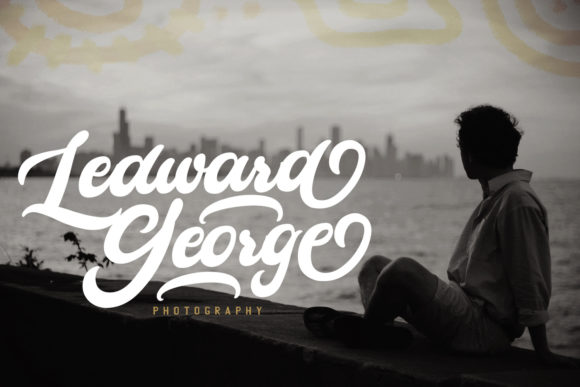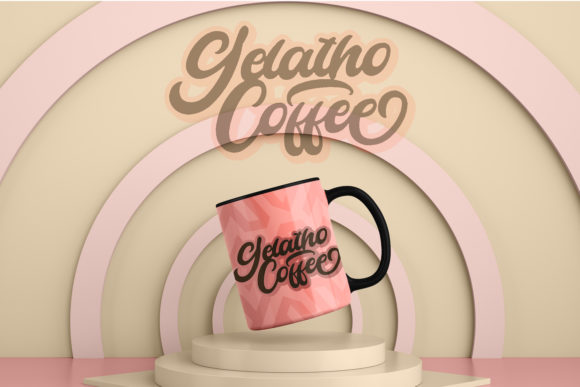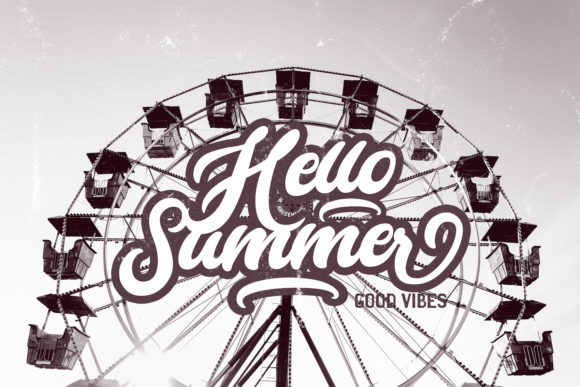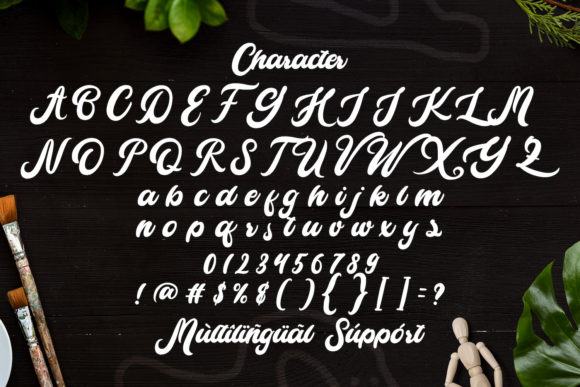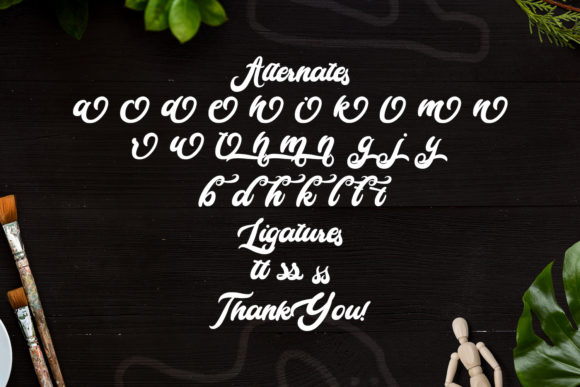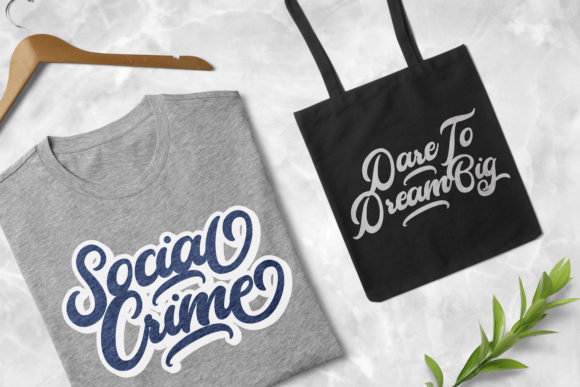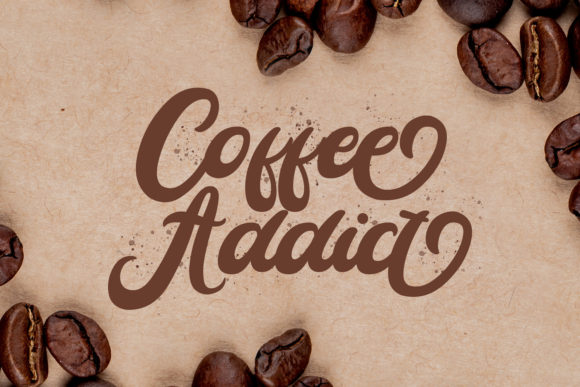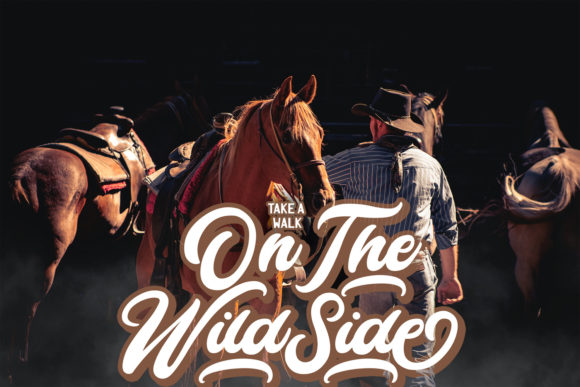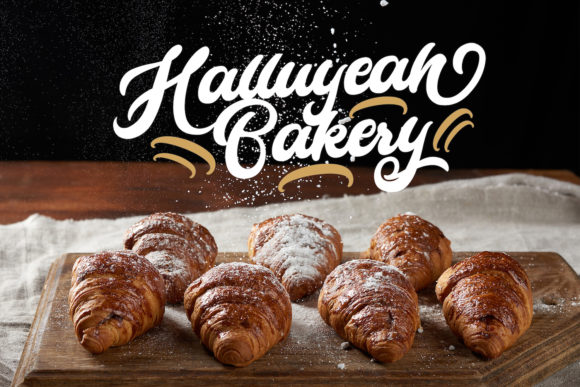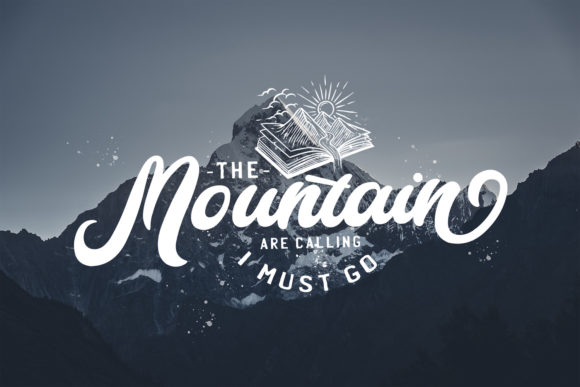
Cameliya, a font that effortlessly captures the essence of retro charm and bold elegance, invites you to embark on a journey through time and style. With its distinct personality and unique features, Cameliya promises to infuse your designs with a touch of vintage allure and contemporary flair.
At first glance, Cameliya’s bold script style makes a bold statement. The deliberate strokes and strong lines give each character a sense of confidence and character. This font pays homage to the past while embracing the present, creating a seamless blend of classic and modern aesthetics that’s truly captivating.
One of Cameliya’s standout features is its varying baseline, which adds a dynamic and playful dimension to your designs. The letters dance across the canvas with an energetic rhythm, breaking away from uniformity and infusing your projects with movement and liveliness. This unique aspect of Cameliya ensures that each word becomes a visual spectacle, drawing the viewer’s eye with its intriguing arrangement.
The vintage and retro taste that Cameliya embodies takes us on a nostalgic journey to a bygone era. It’s reminiscent of the stylish typography that adorned mid-century advertisements and signages, evoking a sense of nostalgia that resonates with those who appreciate both the past and the present. The font becomes a visual storyteller, transporting your audience to a time of classic sophistication.
Cameliya’s vast collection of glyphs and swashes, conveniently accessible through its PUA encoding, offers a playground for creativity. With an array of alternates and variations at your fingertips, you have the freedom to tailor your designs to suit your vision. This versatility ensures that your creations are as unique and individual as your imagination.
The meticulously designed glyphs of Cameliya contribute to its overall charm. Each curve and stroke is carefully crafted to create a harmonious and aesthetically pleasing composition. This attention to detail results in a font that not only stands out but also maintains a level of elegance and refinement that can enhance a wide range of design projects.
Cameliya’s capability to transform ordinary text into a visual masterpiece is unparalleled. From logos that demand attention to vintage-inspired posters that evoke emotion, this font lends itself to a plethora of applications. Its bold and daring nature is perfect for creating statements, while its subtle nods to the past add depth and character to your designs.
With Cameliya, your creative possibilities are boundless. It encourages you to experiment, explore, and push the boundaries of design. Whether you’re working on branding, advertisements, invitations, or digital graphics, Cameliya adds a layer of sophistication that instantly elevates your projects.
In a world where design is a language of expression, Cameliya speaks of boldness, nostalgia, and contemporary flair. It’s not just a font; it’s a conduit for storytelling, a vessel for creativity, and a canvas for your ideas. Embrace the retro charm and versatile style of Cameliya, and watch as your designs transform into spectacular visual experiences that captivate, inspire, and leave a lasting impression.